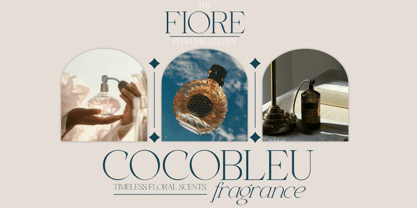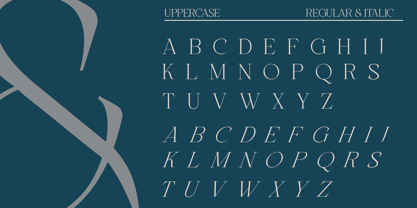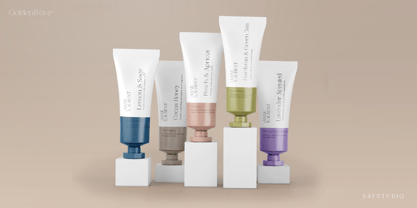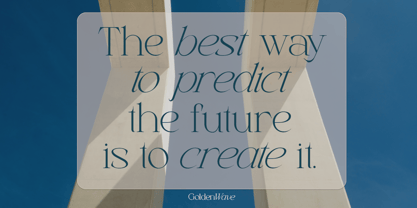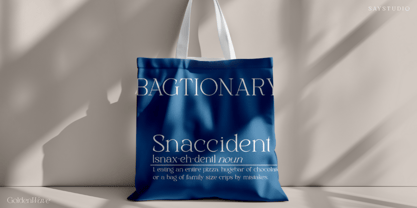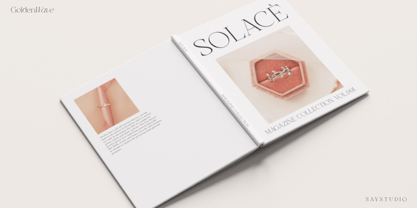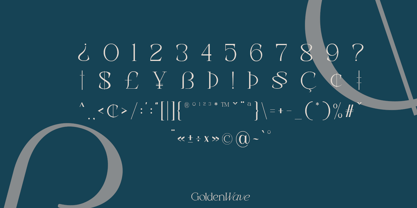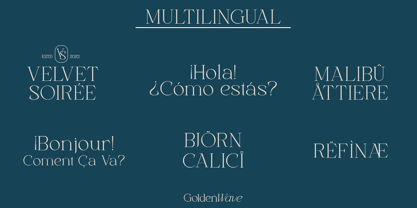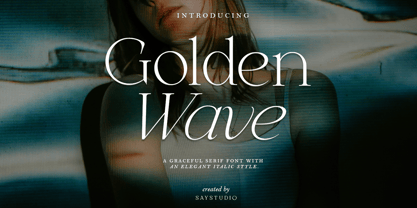
Golden Wave
by Say Studio
The Golden Wave Font Family was designed by Mussyayin and published by Say Studio. Golden Wave contains 2 styles and family package options. More about this family
Golden Wave - An elegant Serif font with an italic style that will add a luxurious and classy impression. Designed specifically for retro and elegant projects, Golden Wave is perfect for posters, web designs, branding, illustrations, badges, and several other works.
- Multi Language
Designers: Mussyayin
Foundry: Say Studio